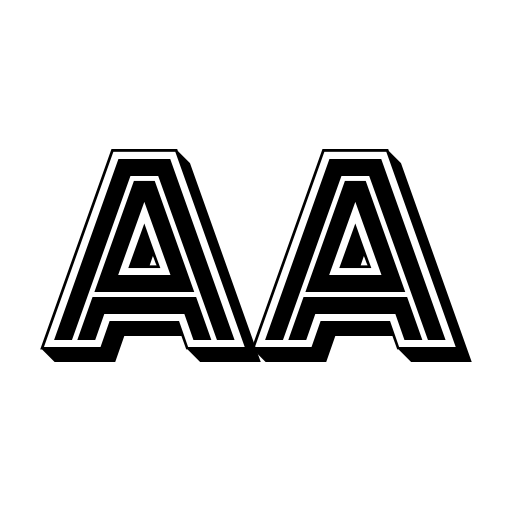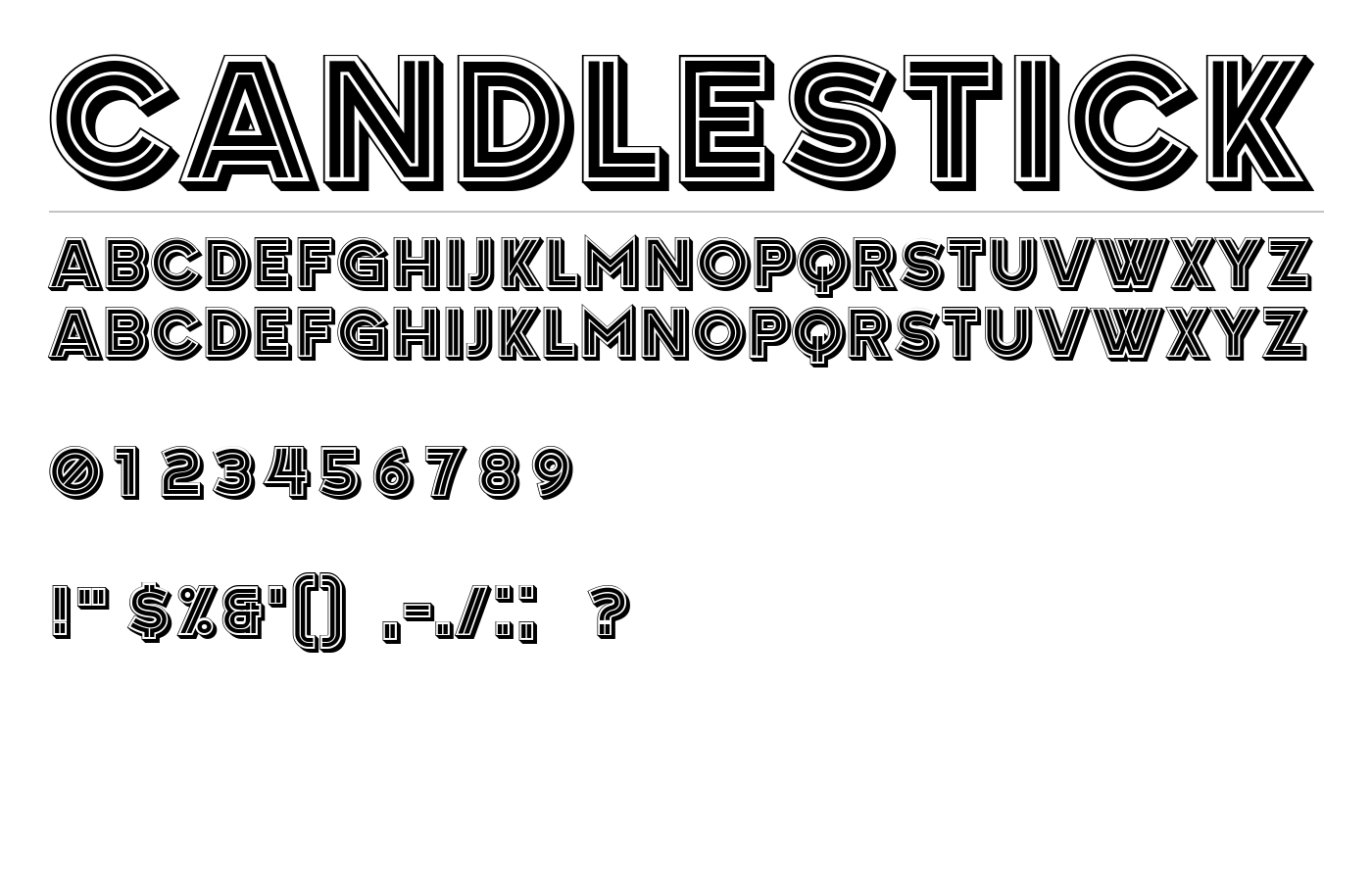
Candlestick is a bold, geometric sans serif font with a striking layered outline effect that gives it a three-dimensional, art deco-inspired look. Its consistent weight, sharp edges, and clean double-line structure make it perfect for creating eye-catching headlines, logos, and posters that demand attention with a vintage yet modern flair. This font works best where a strong, stylish statement is needed, especially in branding and display contexts.
Candlestick Font
About Candlestick Font